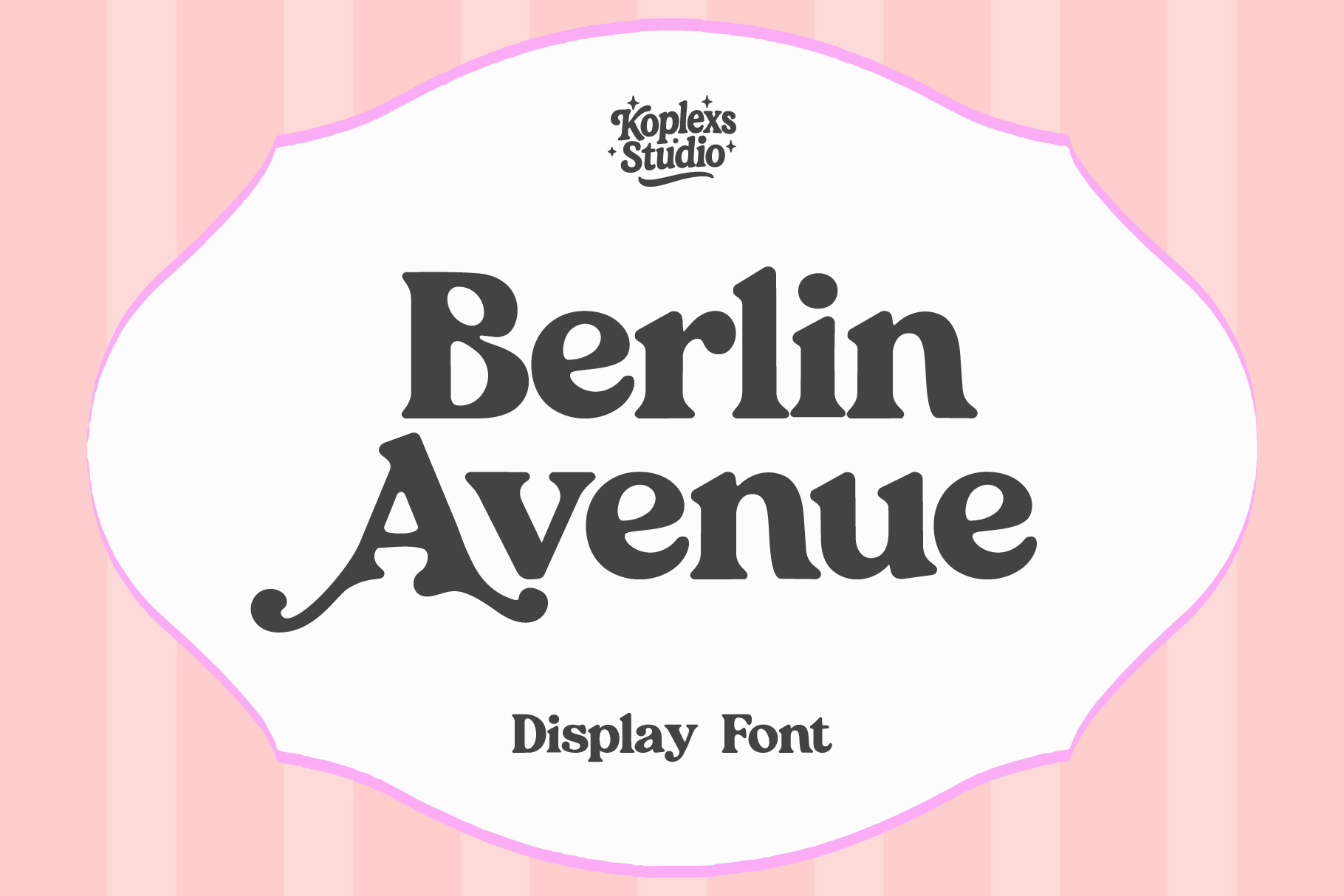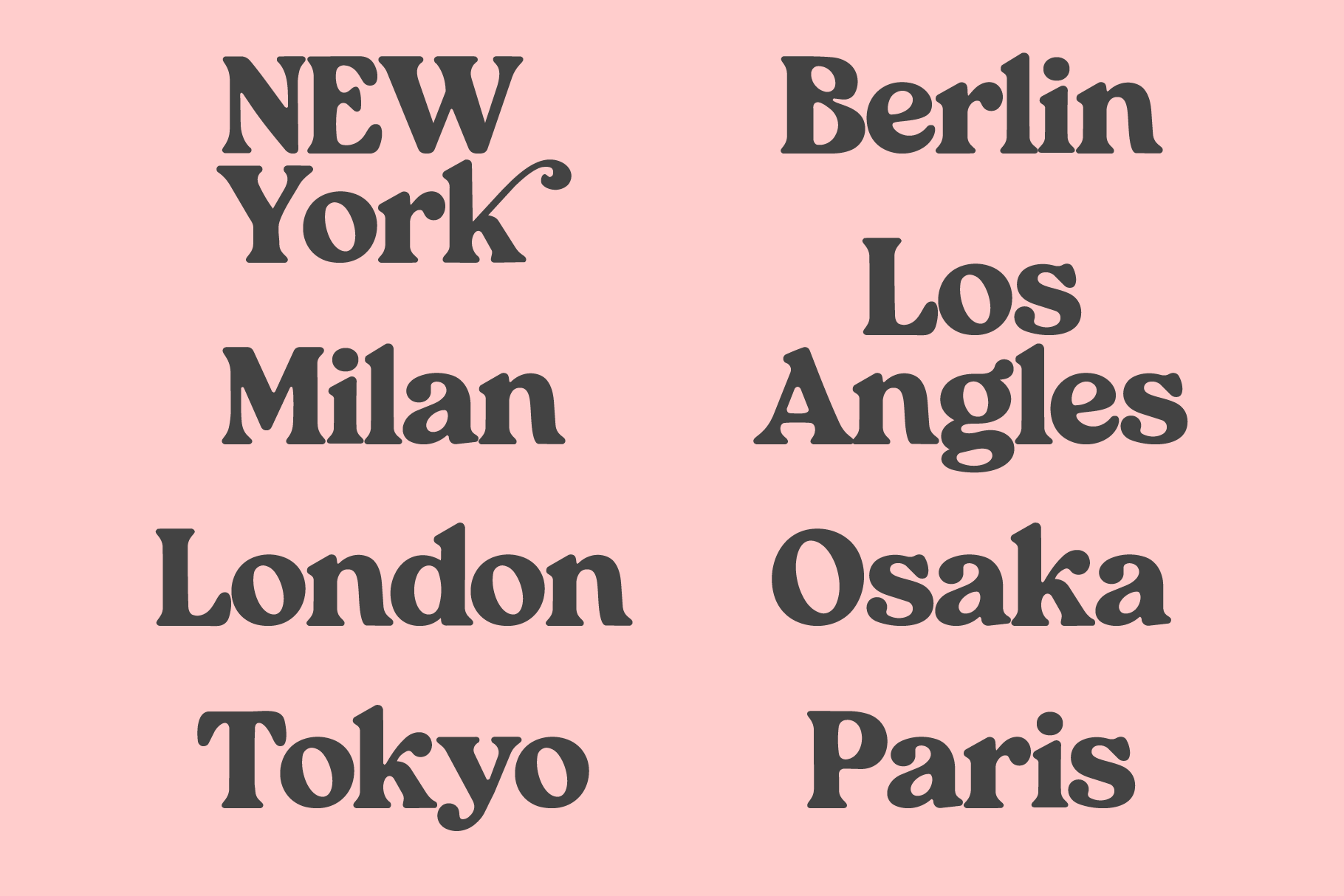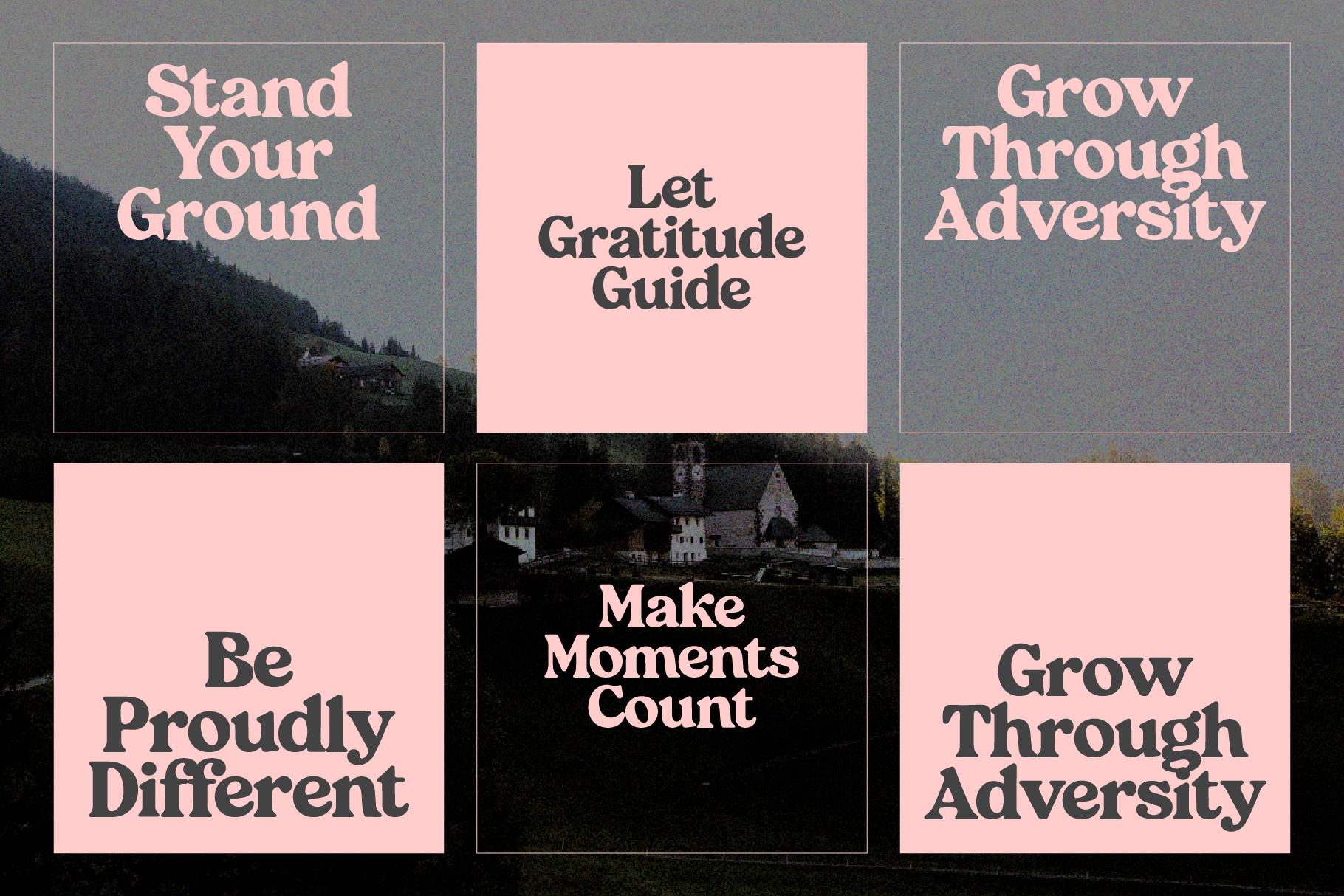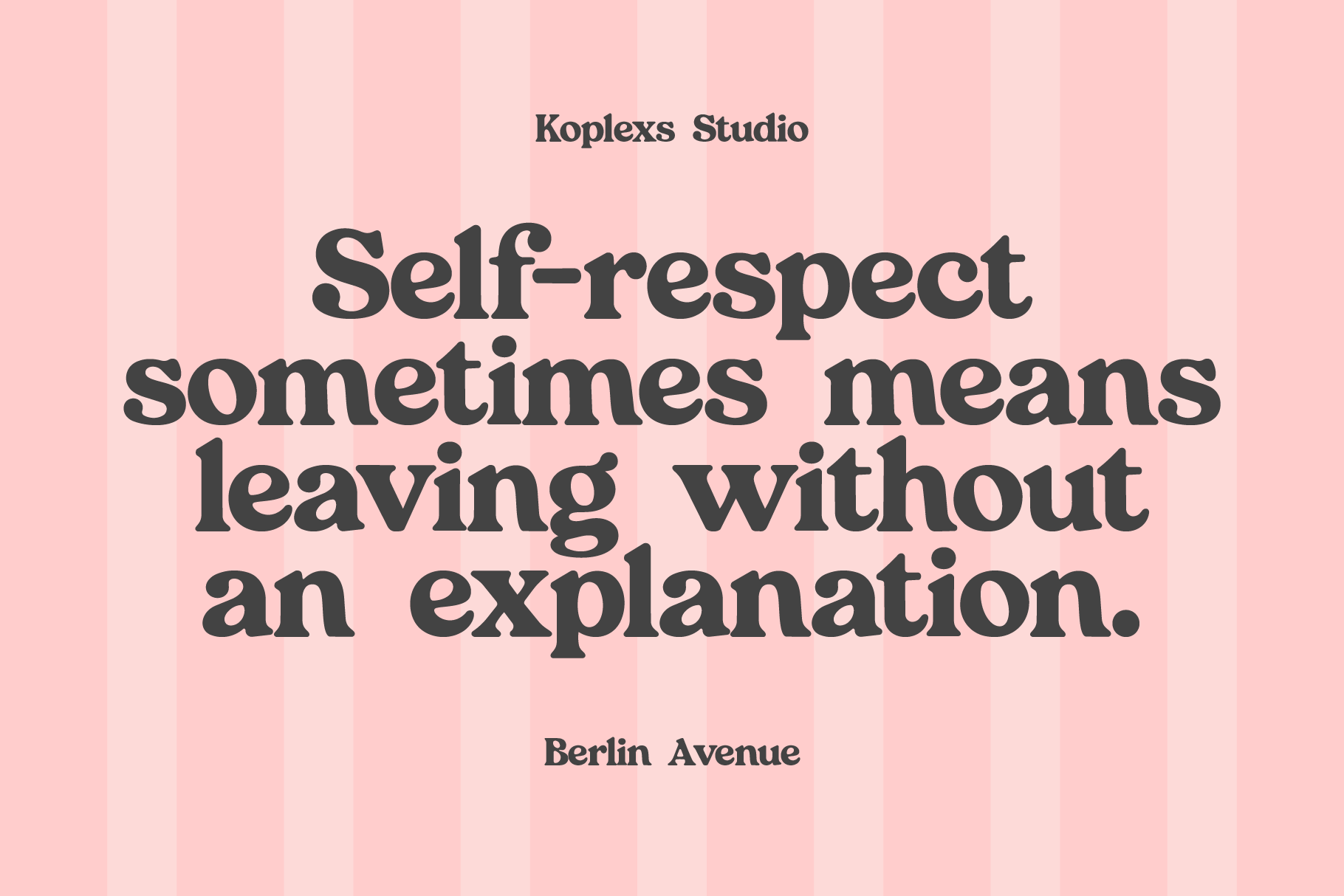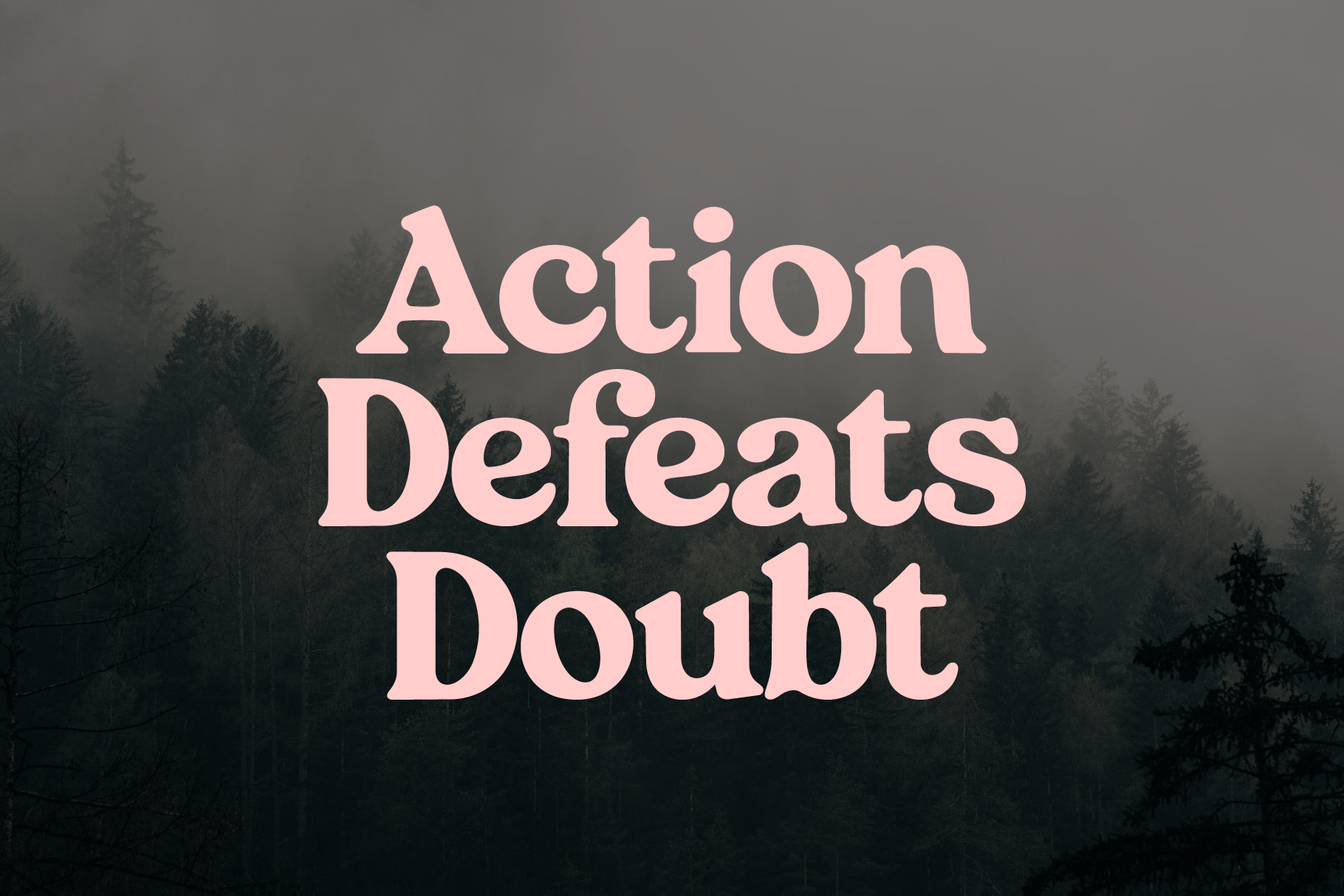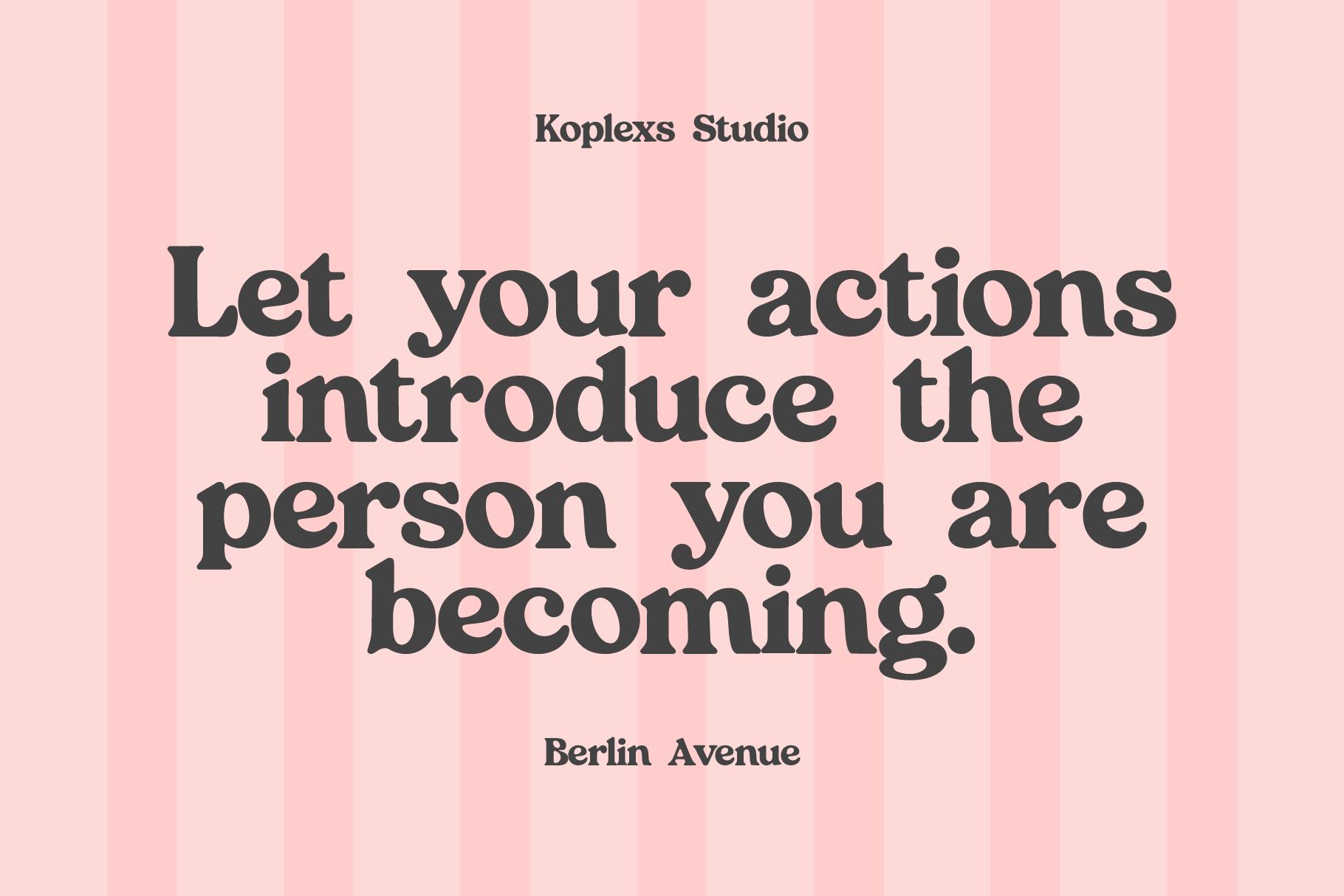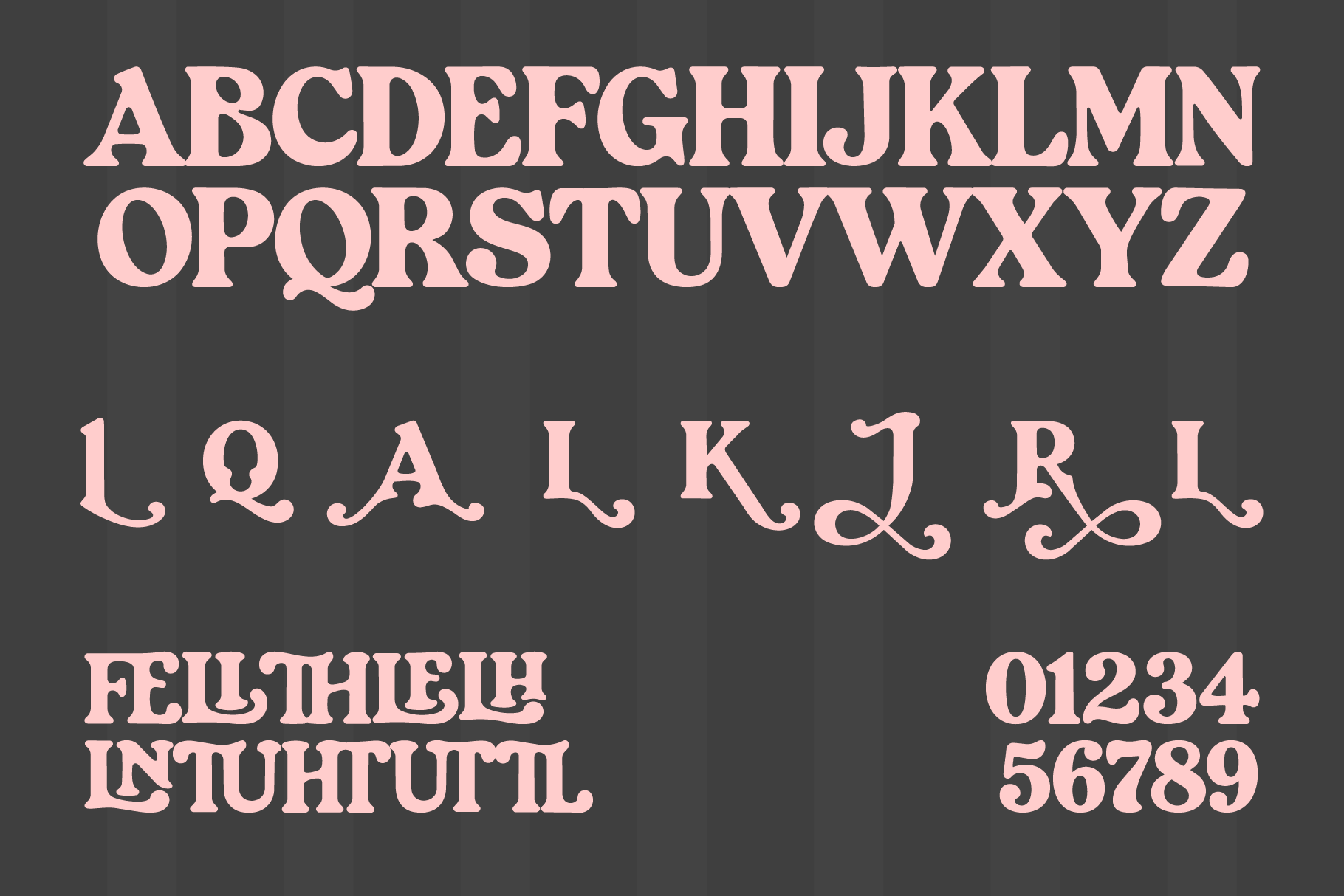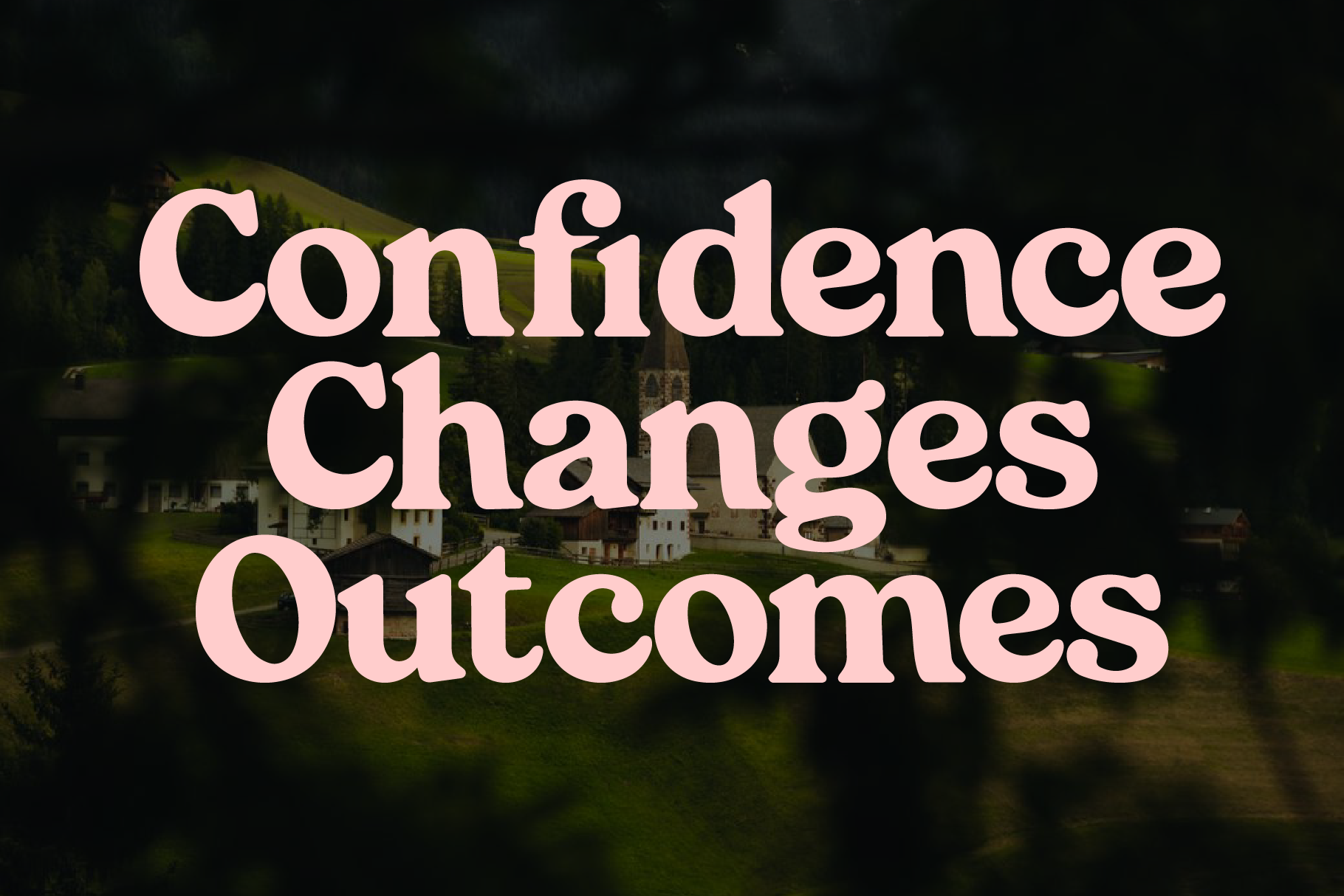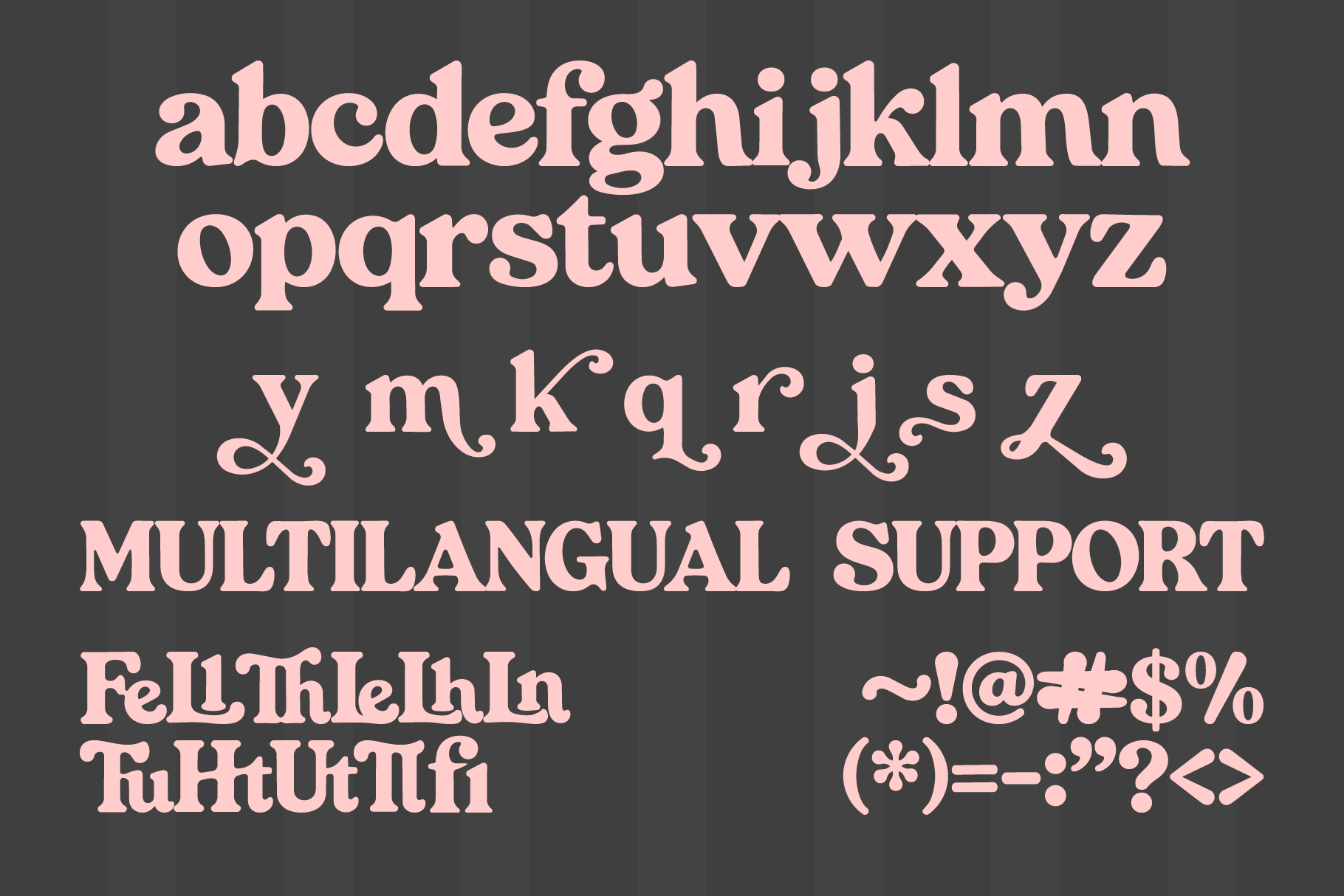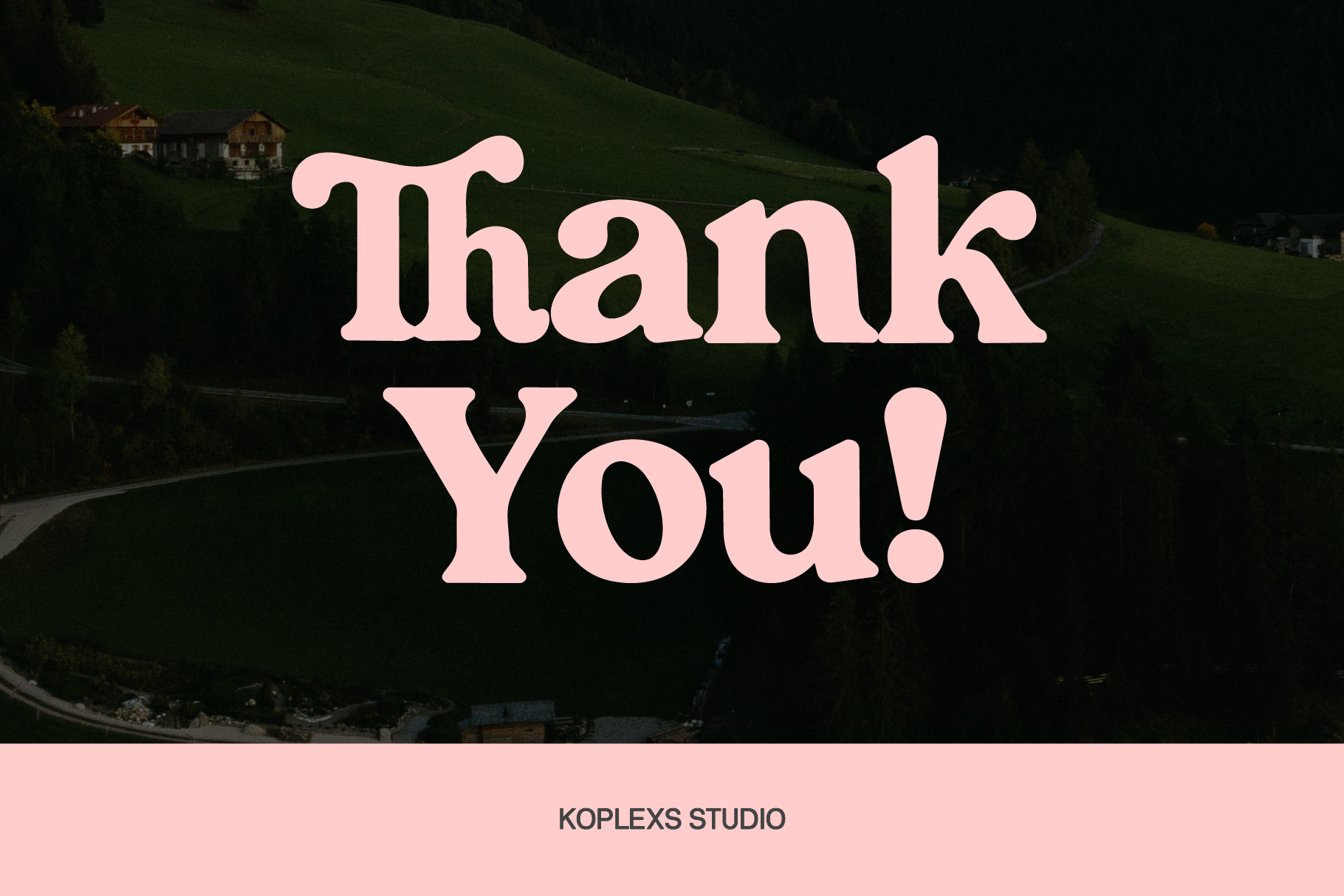
Berlin Avenue Font: Retro Serif Display Font
Berlin Avenue Font is a retro serif display typeface created for logos, packaging, posters, and editorial headlines. Its chunky letterforms, rounded curves, and decorative details give every word a confident, friendly, and recognizable appearance.
Inspired by classic retro fonts, Berlin Avenue delivers a nostalgic mood without making modern designs feel outdated. Its expressive proportions help brand names and short messages attract attention quickly.
As a creative display font, Berlin Avenue works best at large sizes across print and digital projects. The familiar structure found in traditional serif fonts provides a classic foundation, while its playful shapes keep the overall style fresh and distinctive.
Berlin Avenue Perfect For :
- Logos and visual identities
- Product packaging and labels
- Posters and advertising
- Editorial headlines and magazine covers
- Apparel and merchandise
- Invitations and greeting cards
- Website banners and social media graphics
- Café, bakery, fashion, and beauty branding